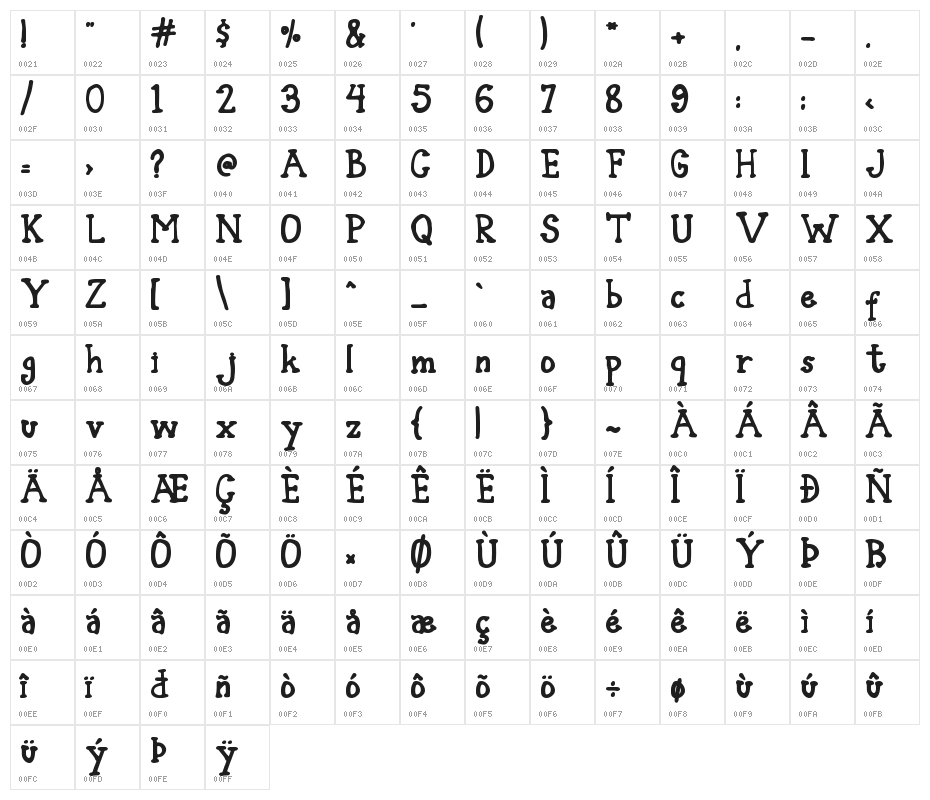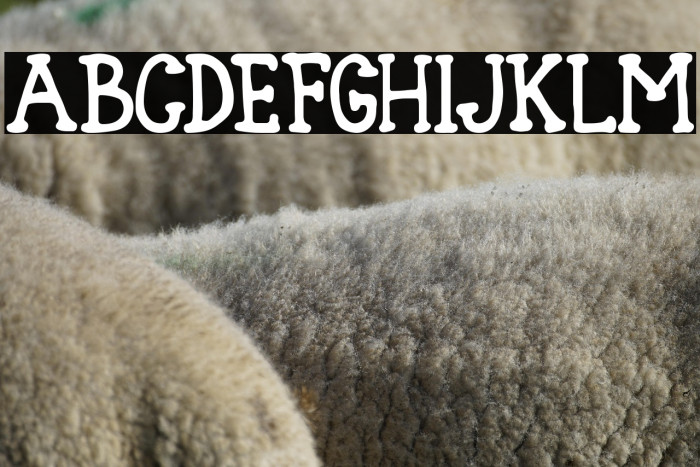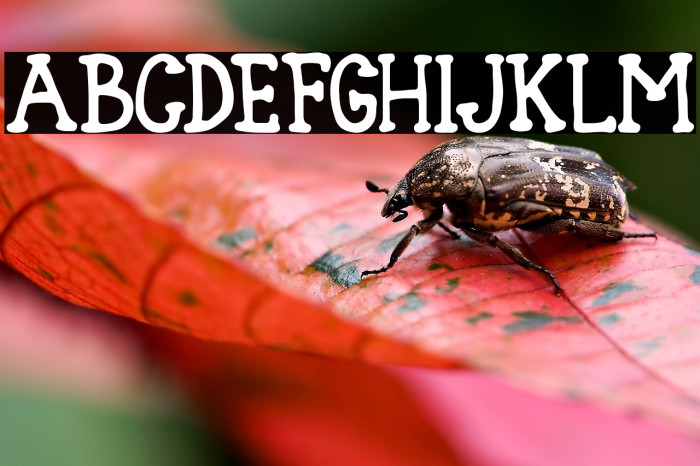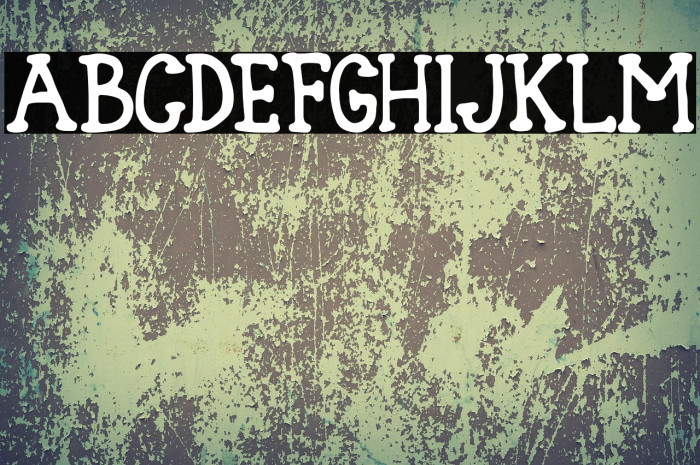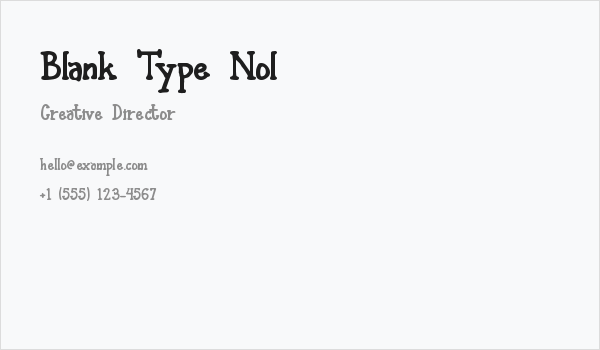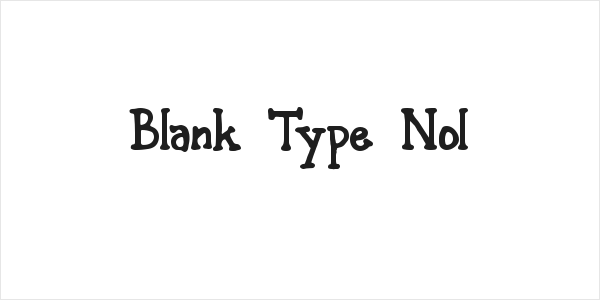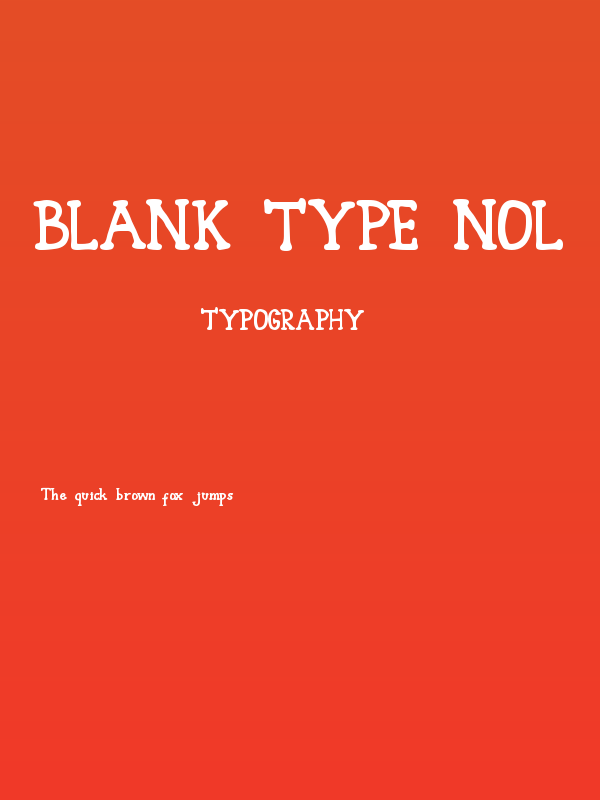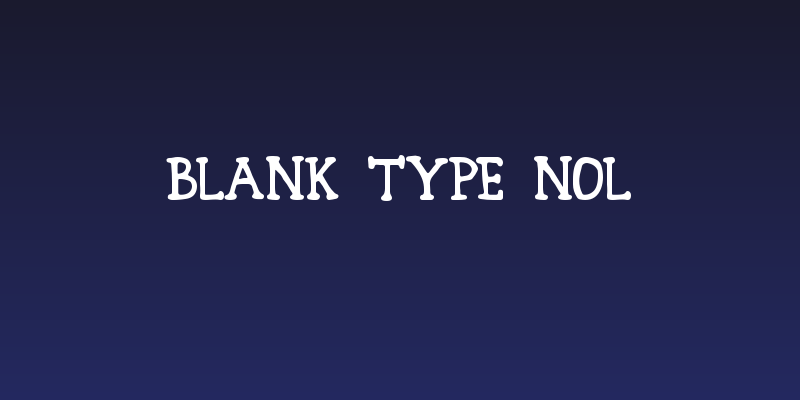
Blank Type Nol Font
Blank Type Nol Description
This font features a playful and whimsical design with rounded, bold strokes that give it a friendly and approachable appearance. The characters are slightly irregular, adding to the hand-drawn feel, while maintaining legibility. The uppercase and lowercase letters are well-balanced, with a consistent stroke width that ensures readability. The numerals and special characters follow the same playful style, making this font suitable for creative and informal applications. Its unique character makes it ideal for projects that require a touch of personality and charm.
| Proposed Projects | Great for children's books, playful branding, casual invitations, and creative posters. |